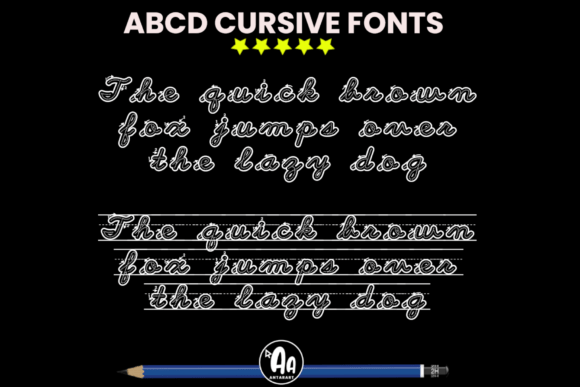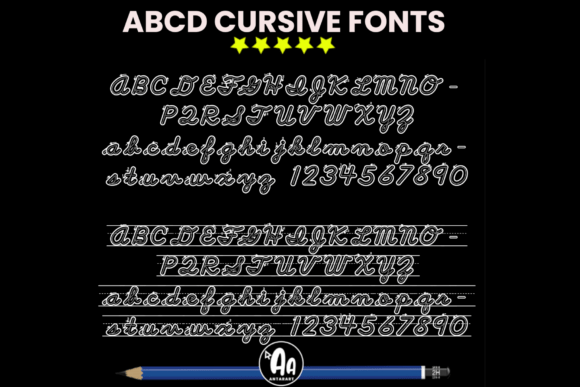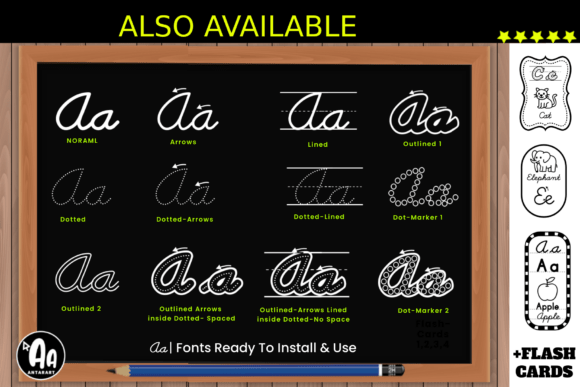
Crafting the Perfect Handwritten Experience
Do you remember the joy of tracing intricate letters in your notebook, the sound of the pencil gliding across the page as you mastered the art of cursive handwriting? For many of us, this creative moment is a cherished memory that we carry with us into adulthood.
For those looking to bring this same joy to their students or children, the Cursive Handwriting Dotted Font is a valuable resource. This installable handwritten font is designed to help create thousands of engaging worksheets, making it an essential tool for teachers and homeschoolers alike. Based on the D’Nealian method, this font is perfect for learning or teaching cursive handwriting in a fun and interactive way. Its spaced version is ideal for letters and numbers, while also aiding in recognizing cursive alphabet letters and developing strong handwriting skills.
Cursive Handwriting Dotted Font Key Features
- Font Type: Cursive, Handwriting Dotted Font
- Unique Characteristics: Includes dotted font style with cursive and handwriting elements, suitable for creative and artistic applications
Cursive Handwriting Dotted Font Review
Overall, I was really impressed with the “Cursive Handwriting Dotted Font”. It’s a beautiful, elegant font that captures the essence of handwritten cursive writing. ✨ The subtle dotted pattern adds a touch of sophistication and makes it perfect for formal invitations, wedding cards, or any other special occasion.
The font is highly customizable, allowing you to adjust the size, color, and spacing to suit your needs. It’s also highly legible, even at small font sizes. ✨ I love how the font flows smoothly from one letter to the next, creating a sense of continuity and cohesion.
- Beautiful, elegant design
- Subtle dotted pattern adds sophistication
- Legible at small font sizes
- May not be suitable for casual, informal use
- Can be overwhelming if used too extensively
- May require additional styling to make it stand out
- ⚠️ Not ideal for body text or large blocks of text
In conclusion, the “Cursive Handwriting Dotted Font” is a stunning font that’s perfect for special occasions or formal events. While it has some limitations, its beauty and elegance make it well worth considering for your next project.